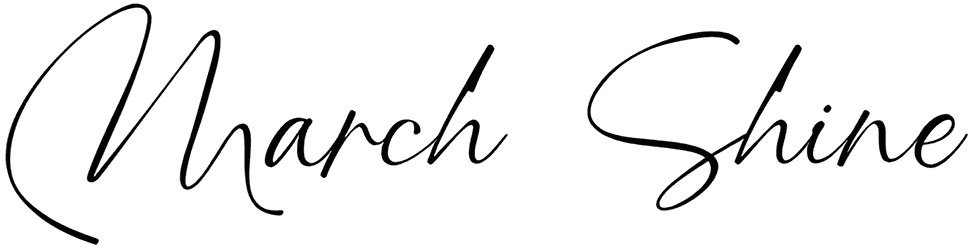
March Shine Font
Create modern and beautiful words with a smooth letter style and show off your special taste. This signature font, known as March Shine, has a casual and twisty face that can be harmonized with any theme. As a calligraphy font, you can set March Shine font on your novel designs from branding to tattoos, and leave an amazing impact on your audiences.